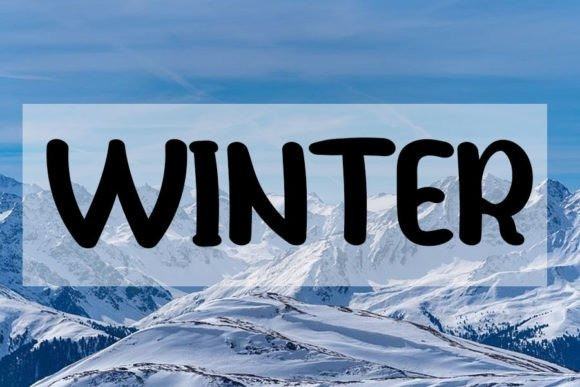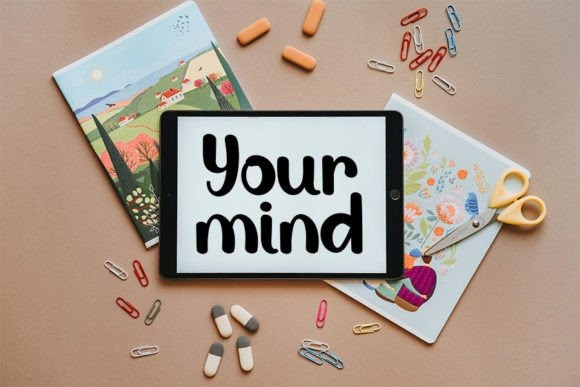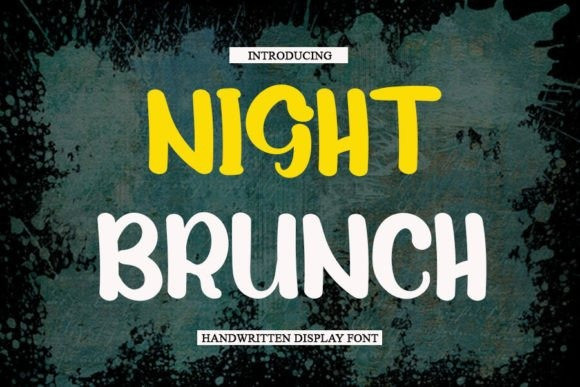
Night Brunch Font
Night Brunch Font is a magical handwritten display font carefully created with a touch of elegance. Clean and a little bit quirky, this font is the perfect fit for all of your logos, branding, social media, and crafty DIY projects.